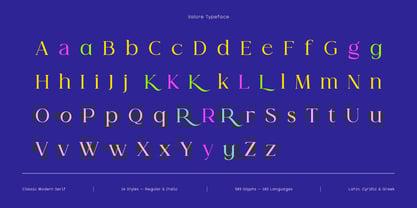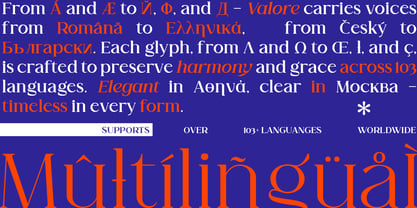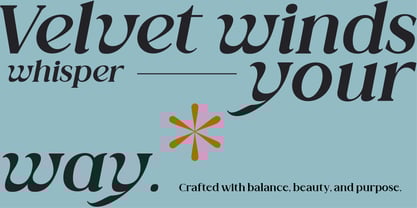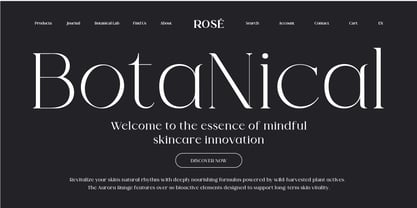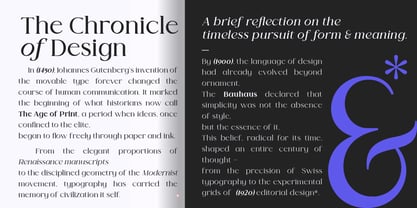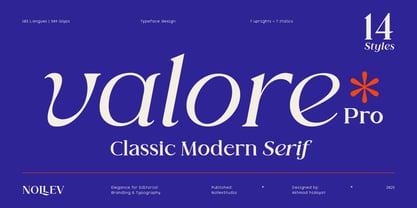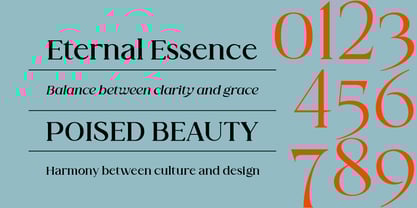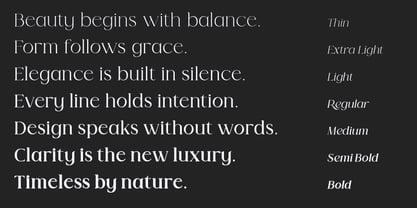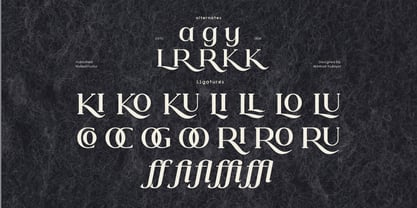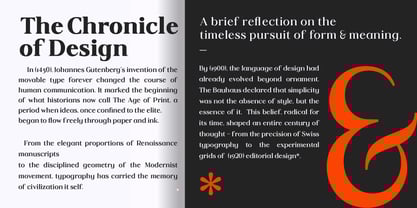
Valore Pro
by Nollev
The Valore Pro Font Family was designed by Akhmad Hidayat and published by Nollev. Valore Pro contains 27 styles and family package options.
Valore Pro is a classic modern serif typeface that combines elegant contrast, refined curves, and high readability for editorial, branding, and sophisticated design projects. The family has been expanded to include Valore Pro Text, a specialized sub-family featuring upright styles from Thin to Bold, meticulously optimized for maximum legibility in long-form reading. Now featuring extensive language support across Latin Extended, Cyrillic, and Greek, Valore Pro is a versatile and comprehensive choice for professional designers across both print and digital applications.
Designers: Akhmad Hidayat
Publisher: Nollev
Foundry: Nollev